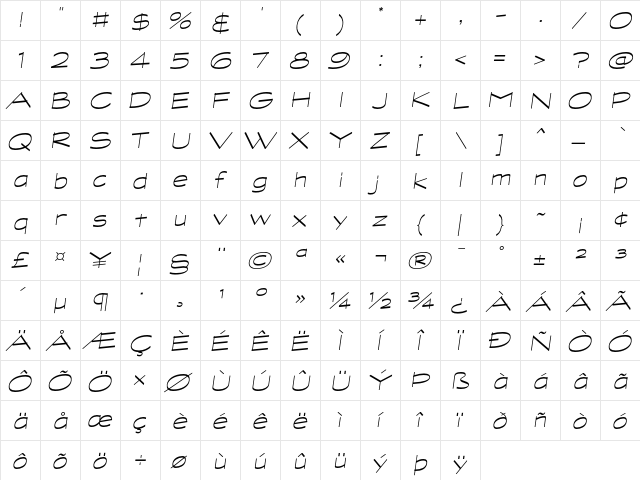
GraphiteLightExtended Oblique Font Preview
GraphiteLightExtended Oblique
GraphiteLightExtended Oblique Font Details
Design Context for GraphiteLightExtended Typeface
GraphiteLightExtended is a composed and adaptable typeface that performs quietly and consistently across a wide range of design contexts. The slanted form adds forward momentum and visual energy. Its slender proportions lend an understated elegance to any composition.
Pro Tip: Try GraphiteLightExtended for annotation and caption copy alongside an upright companion — the contrast in angle creates a dynamic but ordered typographic system.